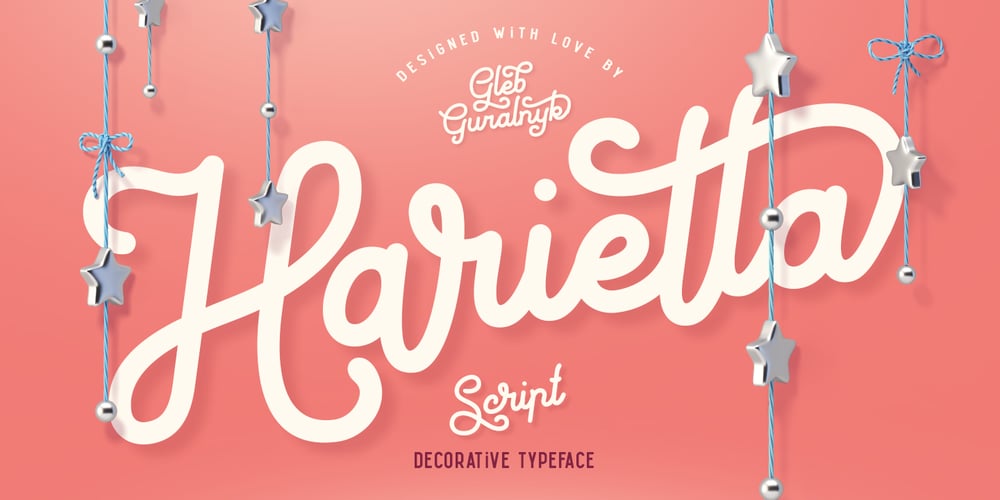
Harietta Font Family was designed by Gleb Guralnyk and published by Gleb Guralnyk. Harietta contains 1 styles and family package options. Harietta is a decorative, smooth font with rounded shapes and lot’s of OpenType features. Harietta has lot’s of additional glyphs (Ligatures, Stylistic Alternates, Swashes), that will help you to create a unique lettering composition.To create a swash in the end of the word just type one or two underscore symbols and number from 1 to 9 and it will be replaced with one of the swashes (check out that “Standard Ligatures” feature is enabled in OpenType panel).Thank you and have a nice day!